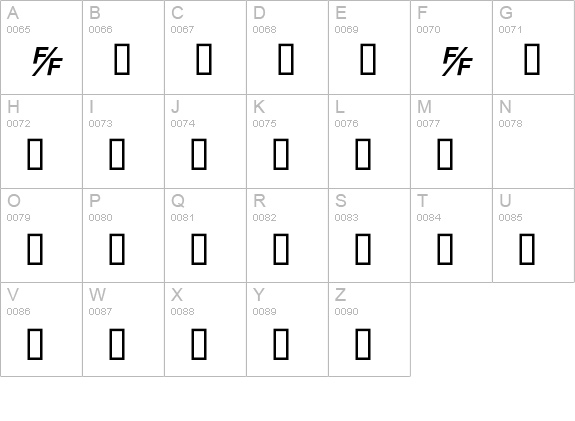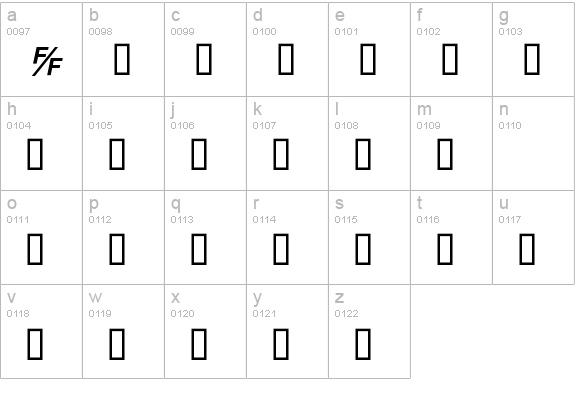
HelvFB BoldOblique Font Details
HelvFB BoldOblique is a stylish and versatile font that exudes a sense of modernity and sophistication. Its bold and oblique design adds a touch of elegance to any text or design project. The strong and distinctive characters make it perfect for headings, titles, and branding materials. This font is ideal for creating a bold statement while maintaining a professional look. The best part is that HelvFB BoldOblique is available for free download at FontsMarket.com. You can easily access this stunning font and enhance your projects with its unique style and flair. Whether you're designing a website, creating marketing materials, or working on a creative project, HelvFB BoldOblique is sure to make a lasting impression. Download it today and elevate your designs with this exceptional font.